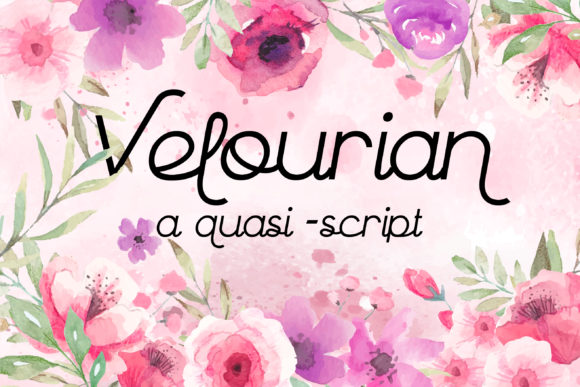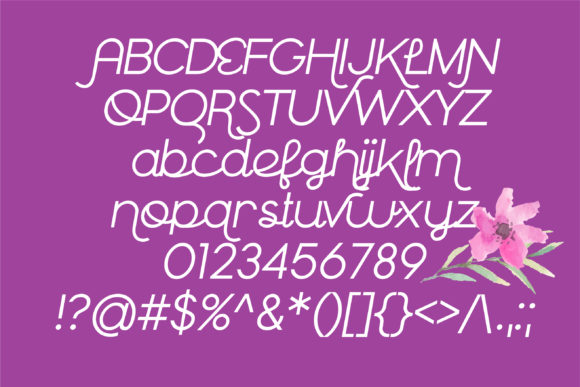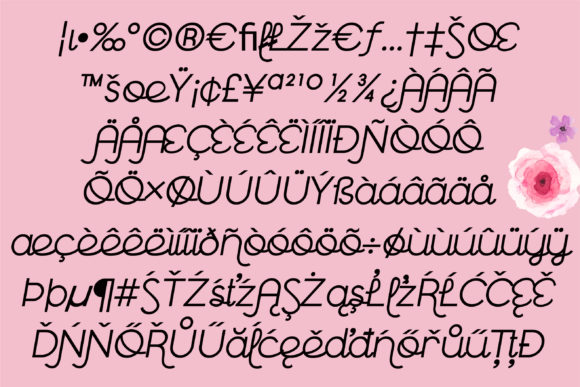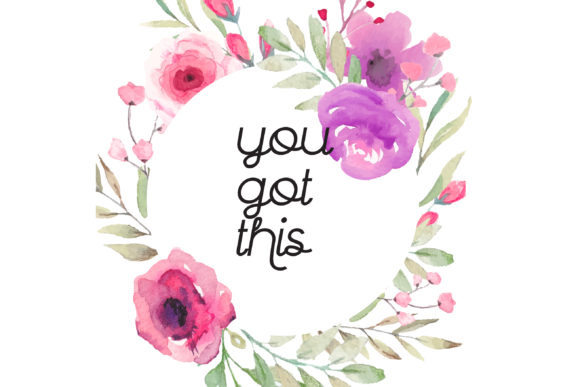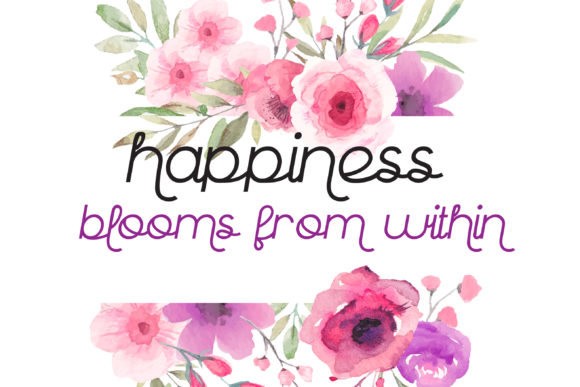
HomeScript FontsVelourian Font Script Fonts Velourian Font FacebookXPinterestWhatsApp Velourian Font Poster 2 Velourian Font Poster 3 Velourian Font Poster 4 Velourian Font Poster 5 About Velourian Font Velourian is a stunning hand-crafted quasi-script with a romantic twist DOWNLOAD NOW People also explored Flowerina Font Apocalypse Font Blossom Font Geckotail Font Jonathan Billy Font Finger Story Font Andalusia Font Embroi Ghokib Font Goodboy Font 323 0 TagsVelourian Font Previous articleSittella FontNext articleAspect Font LEAVE A REPLY Cancel reply Comment: Please enter your comment! Name:* Please enter your name here Email:* You have entered an incorrect email address! Please enter your email address here Website: Save my name, email, and website in this browser for the next time I comment. Personal Use Free Concrete Wall Personal Use Free Read more about this font Salmoni Personal Use Free Read more about this font Gunplay Personal Use Free Read more about this font Cretino Personal Use Free Read more about this font BLOG Best Fonts for YouTube Videos: Make Your Thumbnails Stand Out Best Fonts for YouTube Videos: Make Your Thumbnails Stand Out Choosing the right font can make a massive difference in how your YouTube videos perform.... Top 7 Google Fonts Alternatives for Faster and Privacy-Friendly Web Design (2025) Modern Sans-Serif Fonts That Brands Love in 2025 To increase your work productivity, choose the most readable fonts.